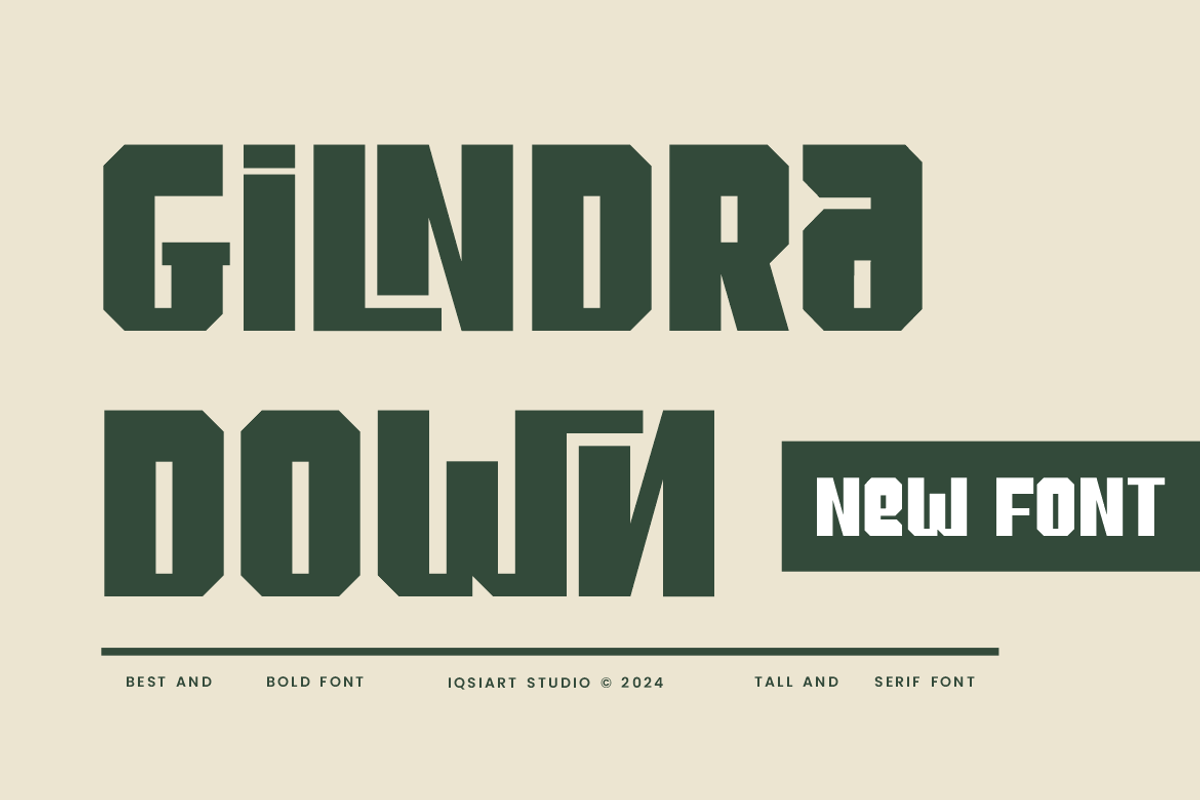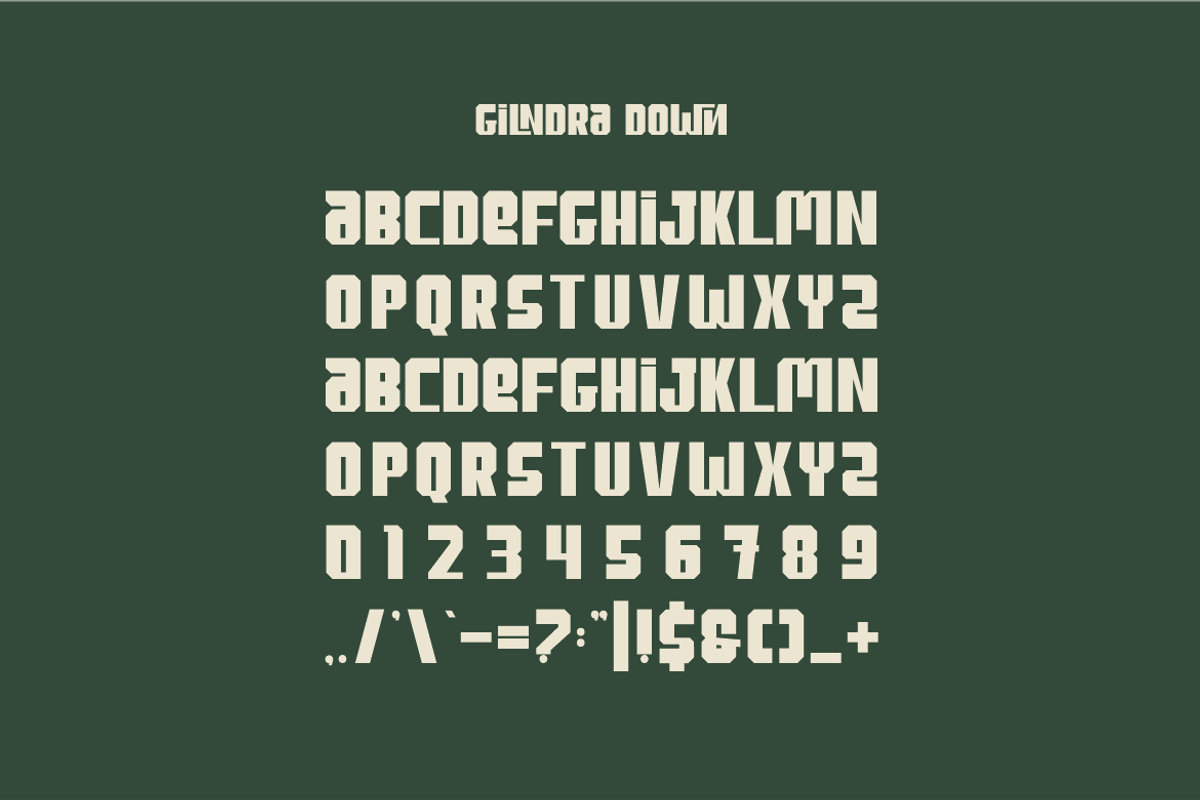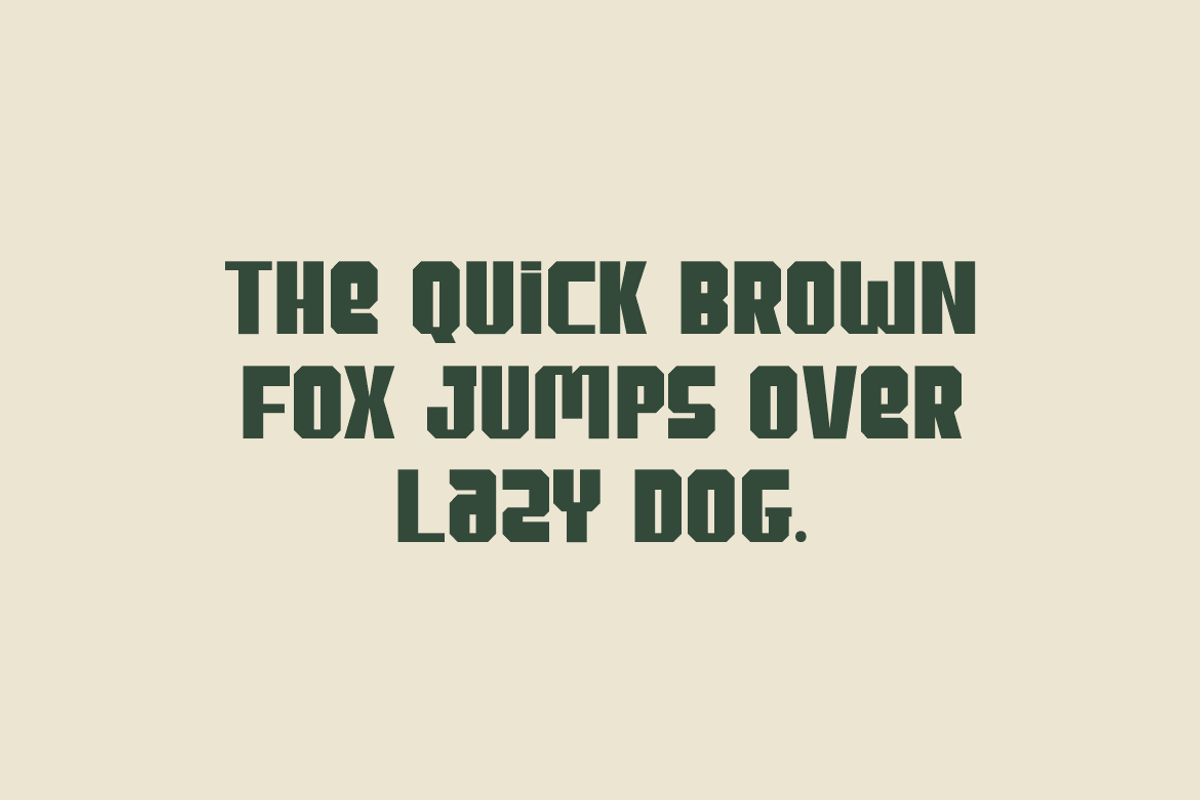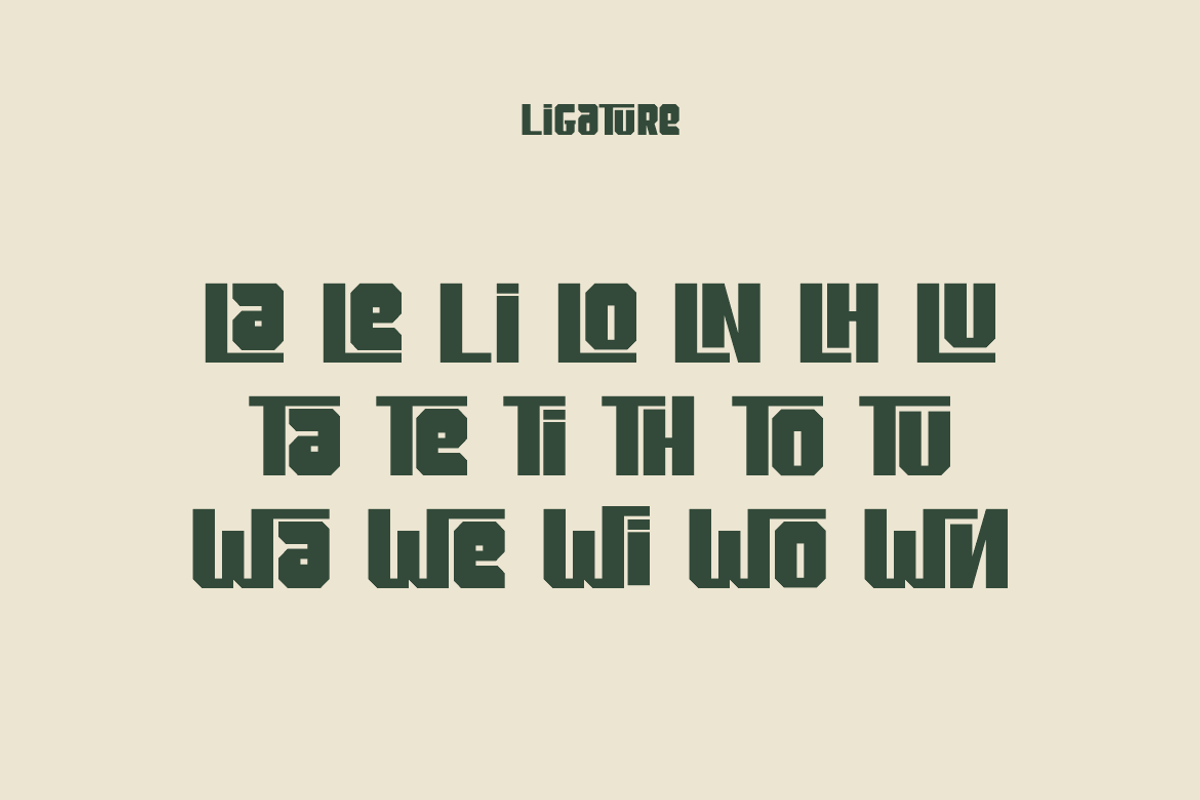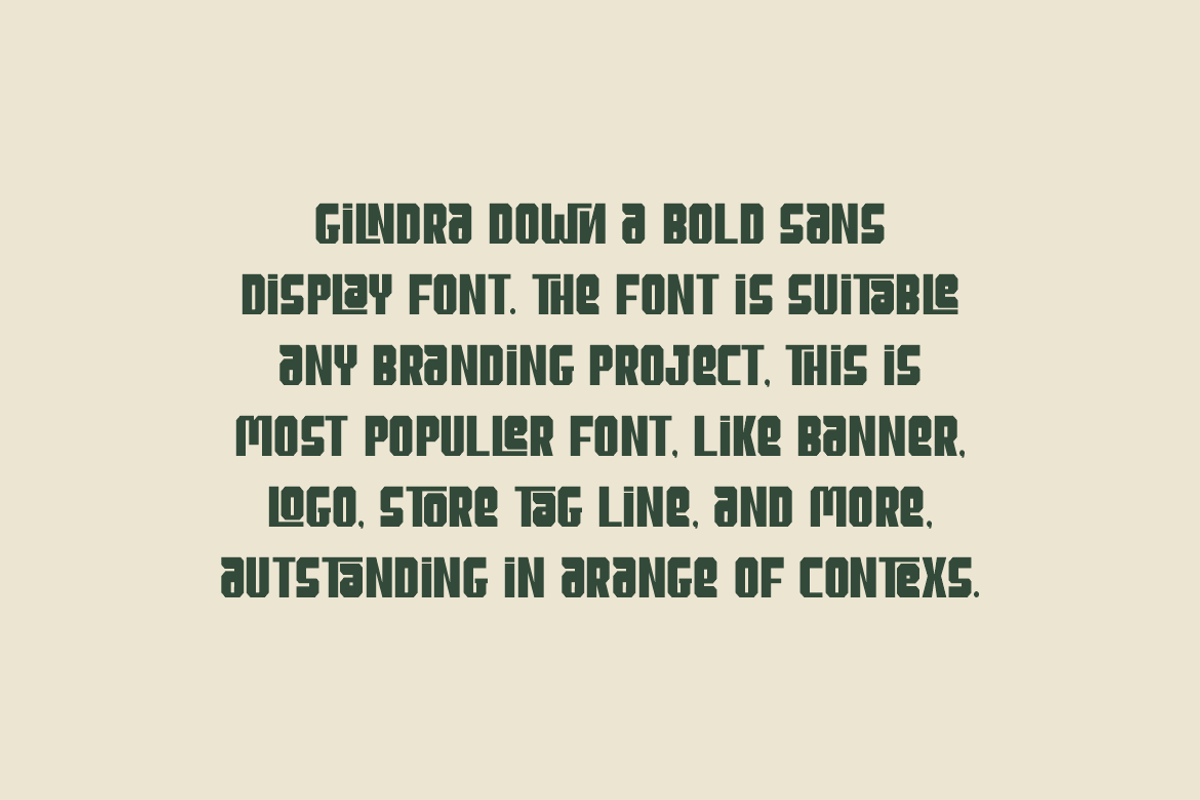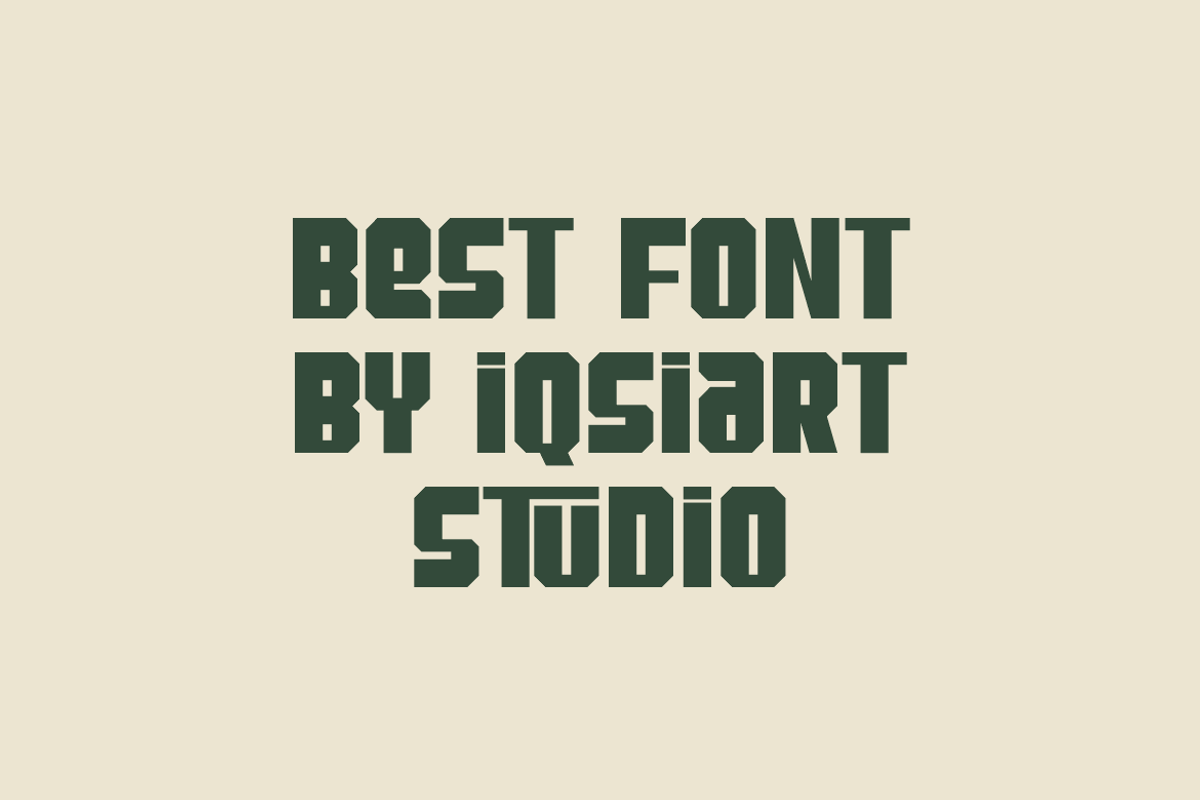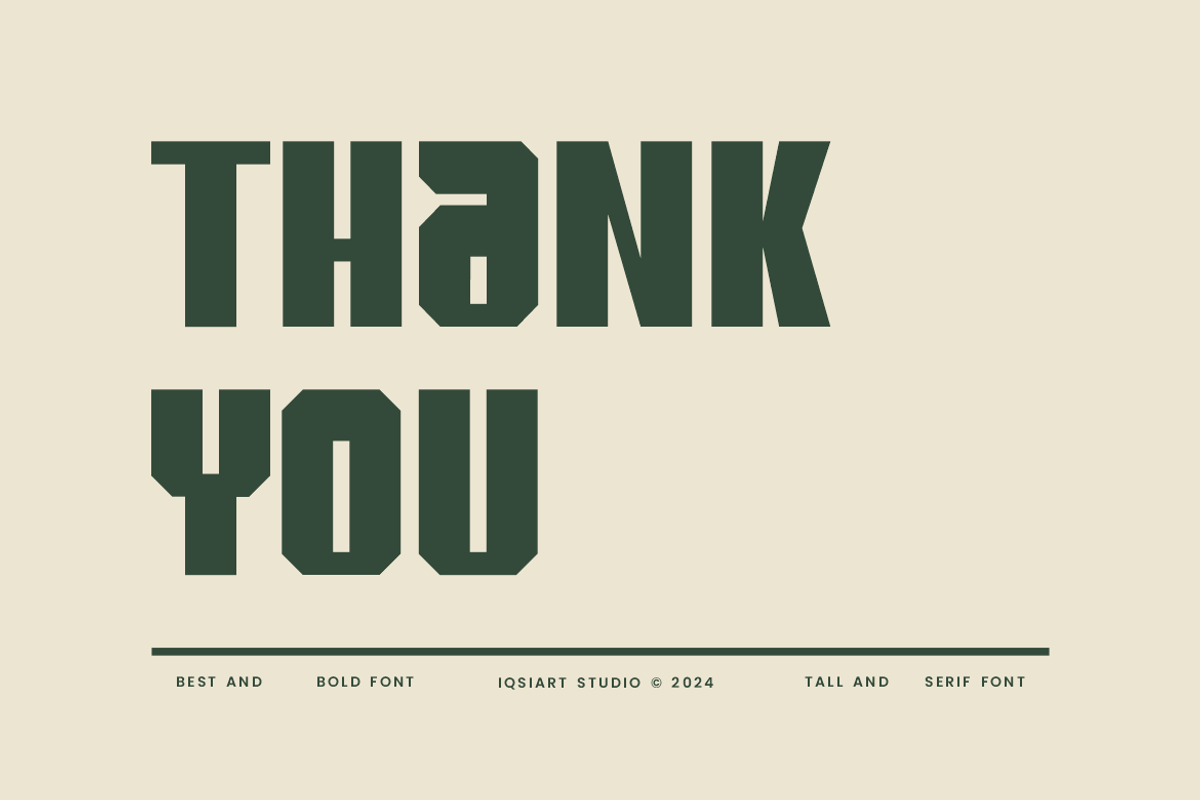
Gilndra Down - Thick & Bold Font
Gilndra Down Font is a best and authentic display font. This font can be used for your various needs. We provide various themes and font styles. visit our profile to get a wide variety of themes and different font styles you need.